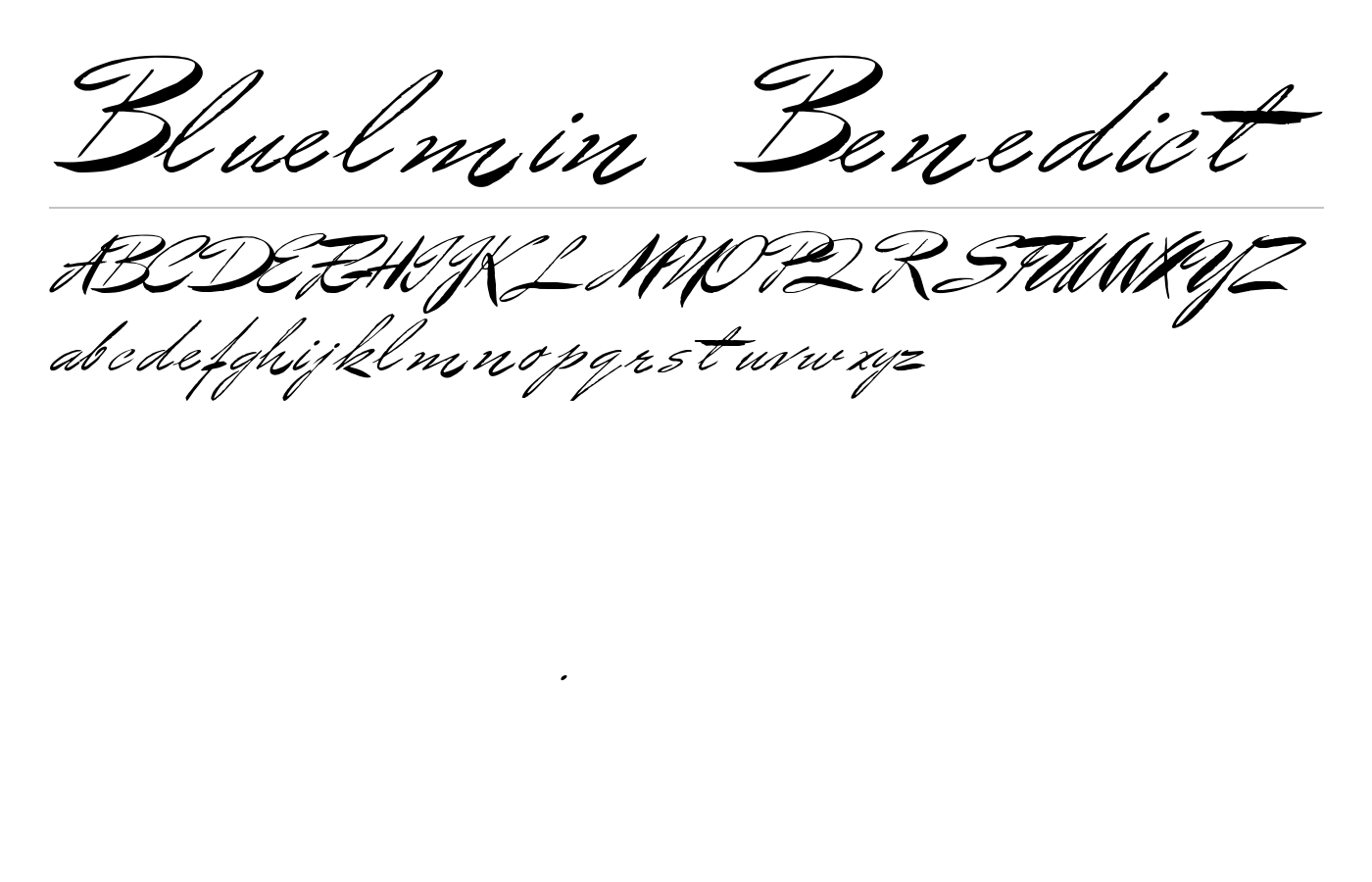
Bluelmin Benedict is an elegant script font that features flowing, handwritten letterforms with a dynamic contrast between thick and thin strokes, giving it a graceful yet bold appearance. Its refined curves and natural, fluid style make it ideal for sophisticated branding, invitations, and logos where a personal, artistic touch is desired. This font works best in designs seeking to convey luxury and creativity with a classic, stylish flair.
Bluelmin Benedict Font
About Bluelmin Benedict Font